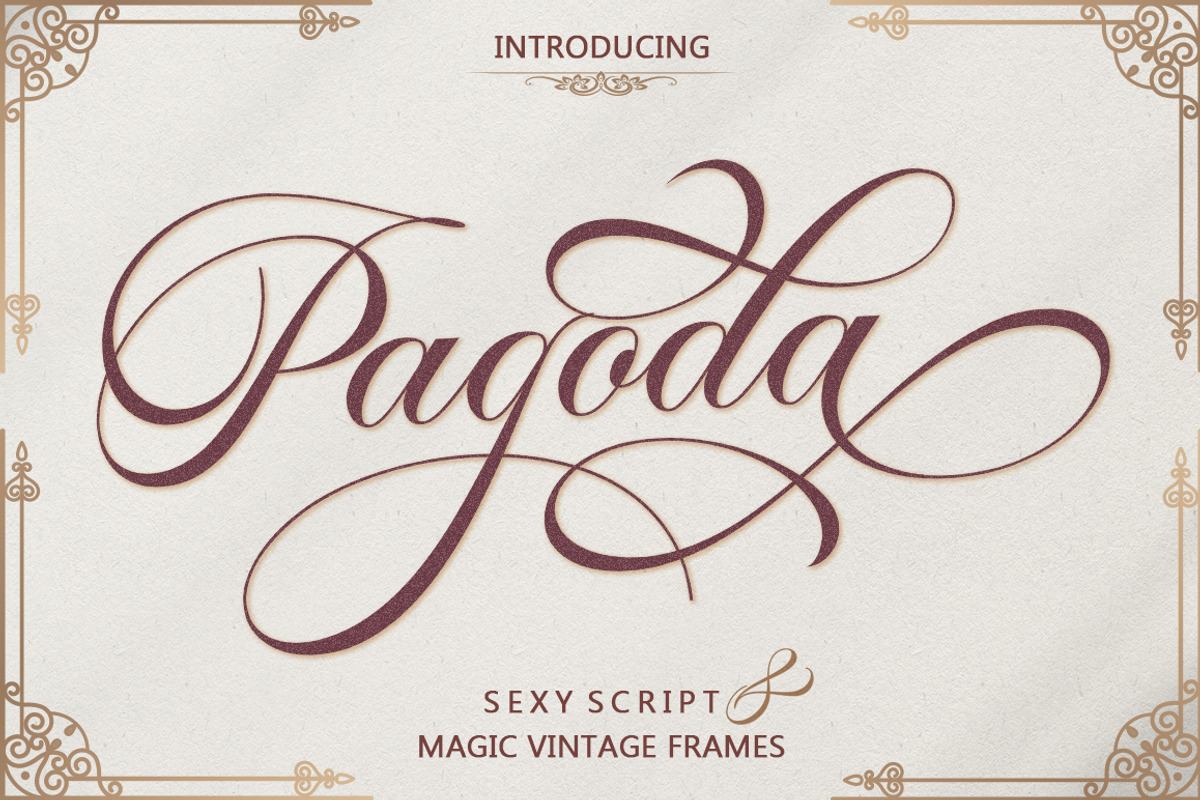
Bring a touch of elegance and unique character to your designs with Pagoda Font Free Download. This decorative typeface features a blend of sharp, geometric forms and flowing curves, making it perfect for branding, logos, posters, editorial design, and creative projects that require a distinct, artistic touch.
Pagoda is ideal for adding personality and visual interest to your typography, with its stylish and sophisticated design that stands out in both print and digital formats. It includes uppercase and lowercase letters, numerals, punctuation, and multilingual support, providing the flexibility you need to explore creative layouts.